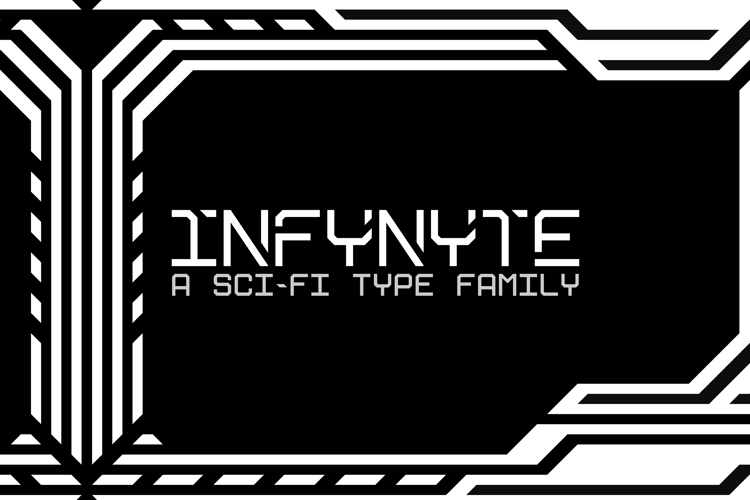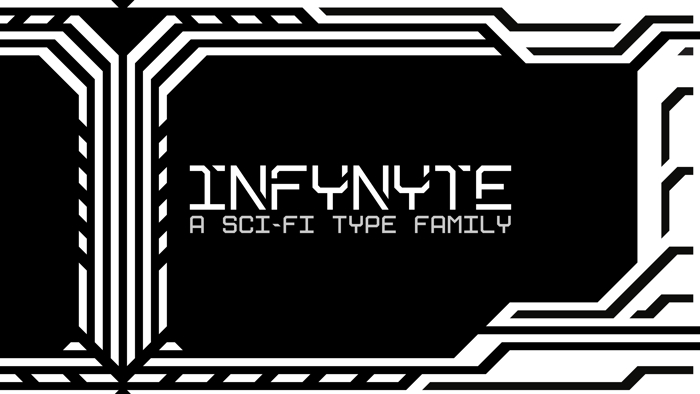
Infynyte Dysplay Font
Dysplay Style
Dysplay Sharp Style
INFYNYTE is a family of typefaces that aim to embody the styles and ideas of minimalism and sci-fi futurism. It can be used in many was and for many applications surrounding minimalistic and or sci-fi themes, as well as hi-tech designs.